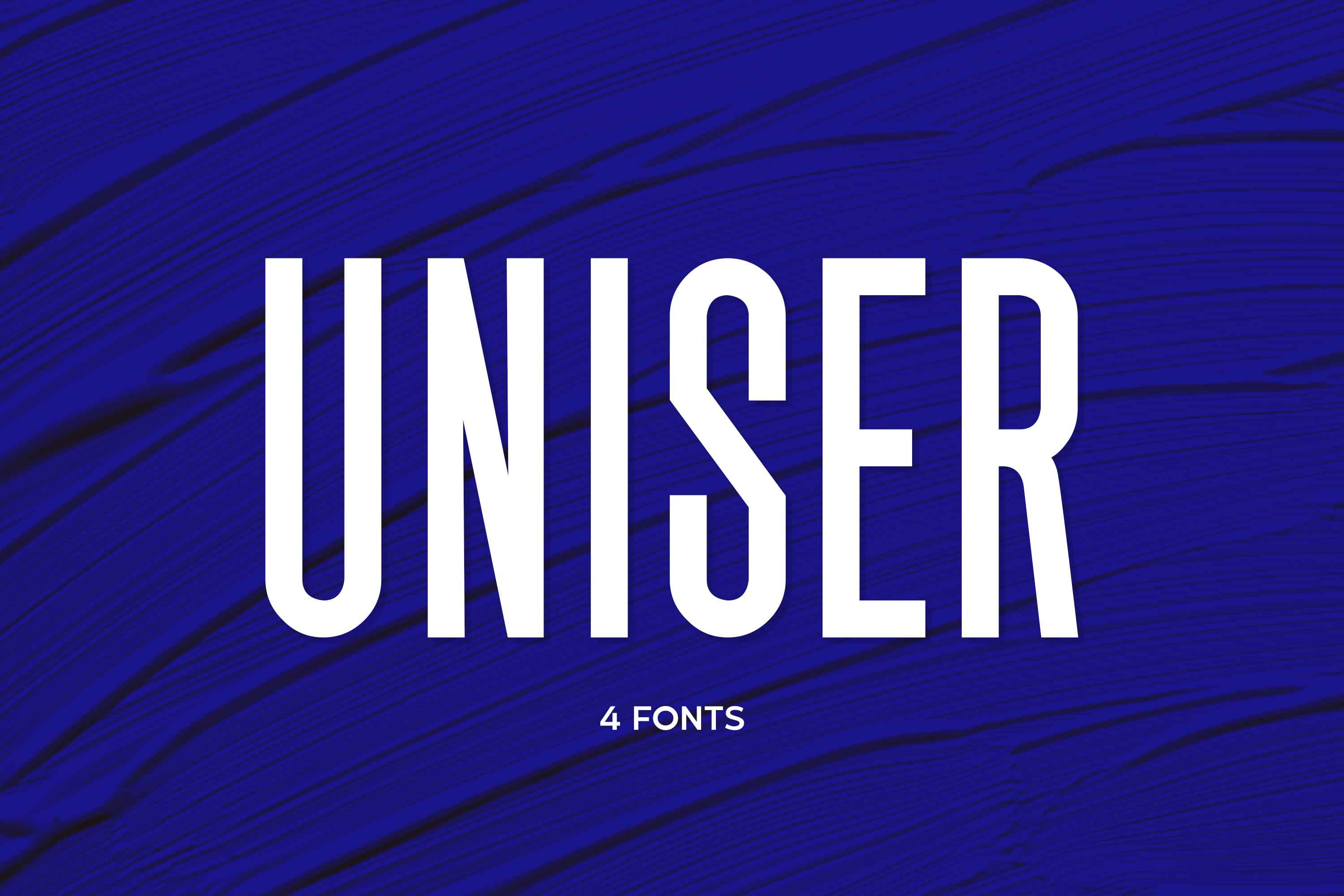
Uniser - 4 Font
Hello Everyone, Introduce our new collection, Uniser Font is inspired by famous logos of shoes and brands that have very strong characteristics, Uniser has 4 styles that allow you to get a job with satisfying results. very suitable for posters, tshirt, packaging, branding, logotype and more.
Uniser font with strong and challenging nuances. very suitable for the title, typography, clothes, Poster, magazines, brochures, packaging,Websites and much more for your design needs, making your designs more modern and professional